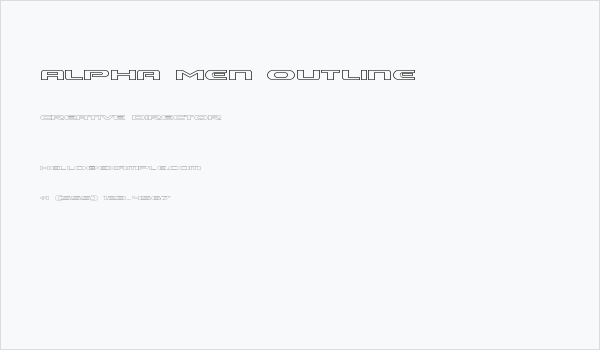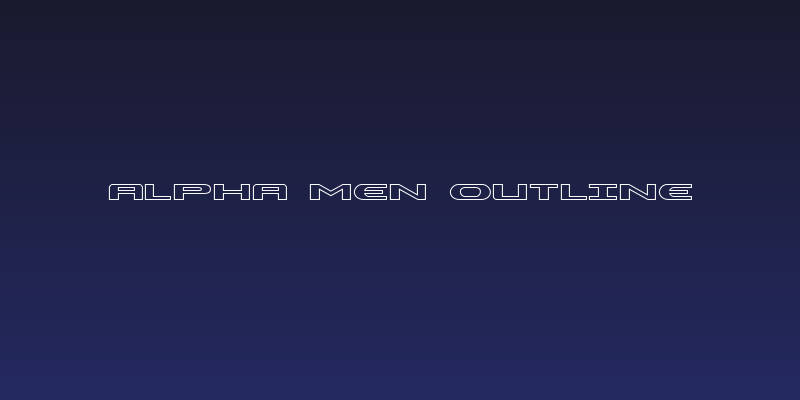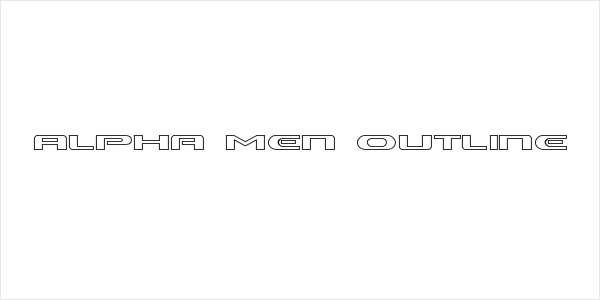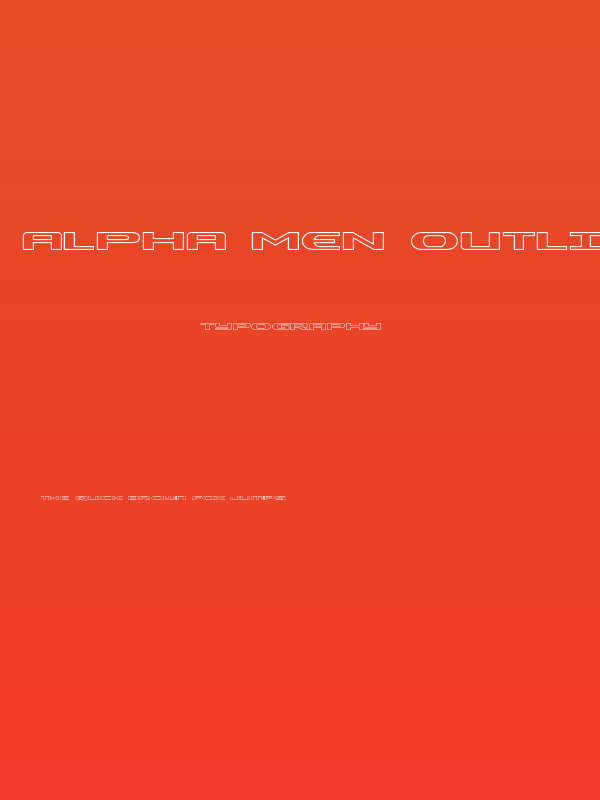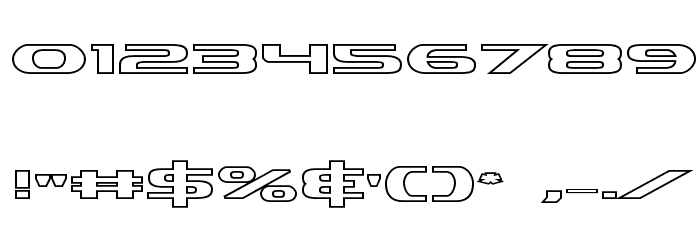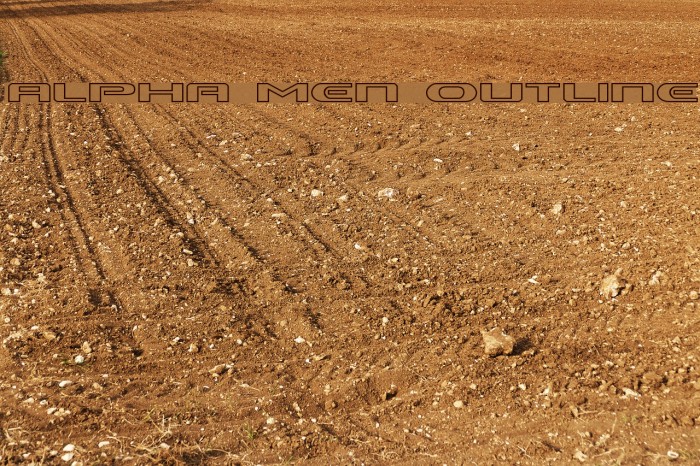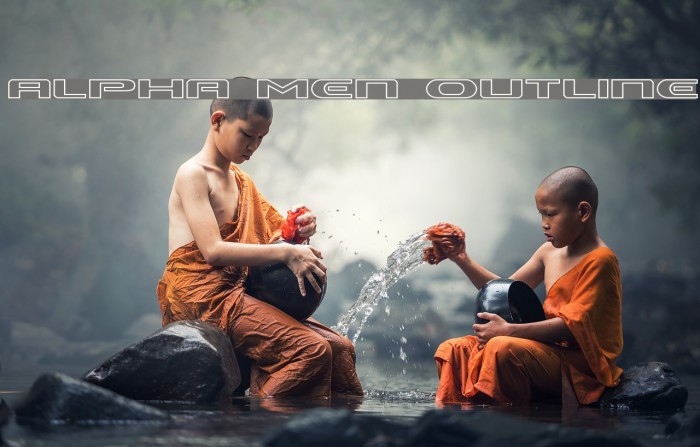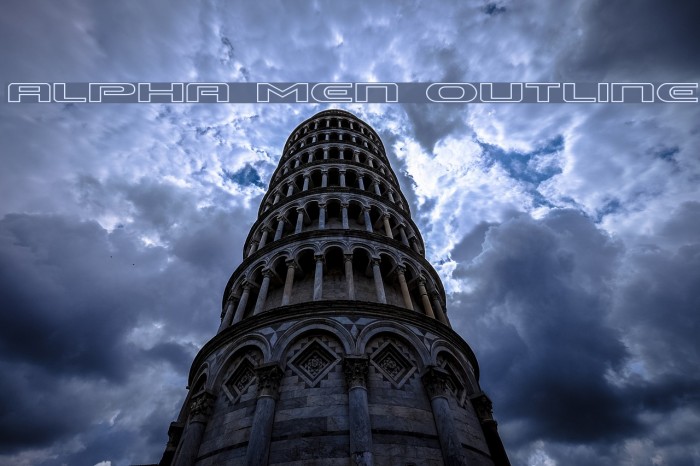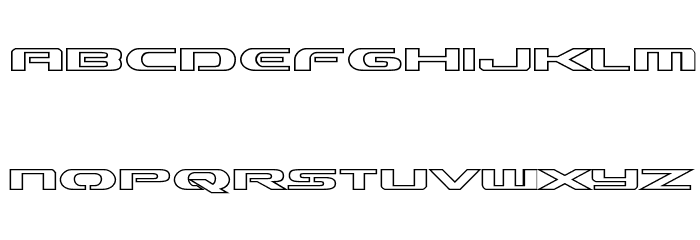
Alpha Men Outline Font
Alpha Men Outline Description
This font features a bold, futuristic outline style that gives each character a distinct, geometric appearance. The uppercase letters are designed with sharp angles and clean lines, creating a modern and edgy look. The lowercase letters maintain the same structural integrity, offering a cohesive design throughout. Numbers and special characters are crafted with the same attention to detail, ensuring consistency across all glyphs. The outline nature of the font adds a unique dimension, making it suitable for projects that require a standout, contemporary aesthetic.
| Proposed Projects | Ideal for sci-fi themed designs, technology branding, video game titles, and modern posters. |